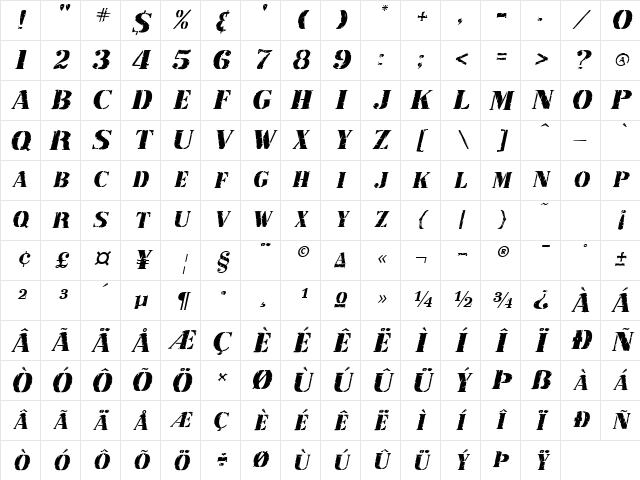
RubberStamp Italic Free Font
RubberStamp Italic
RubberStamp Family
RubberStamp Italic
Design Context for RubberStamp
RubberStamp borrows the utilitarian aesthetic of stencil lettering, with its characteristic cutaways and no-frills construction lending an industrial edge. The slanted form adds forward momentum and visual energy.